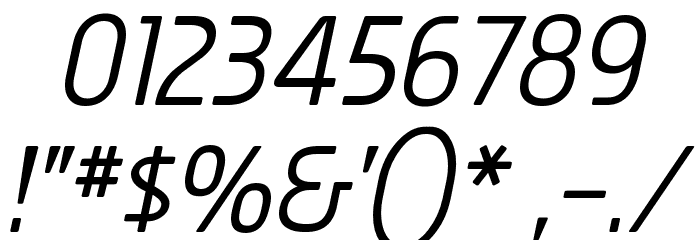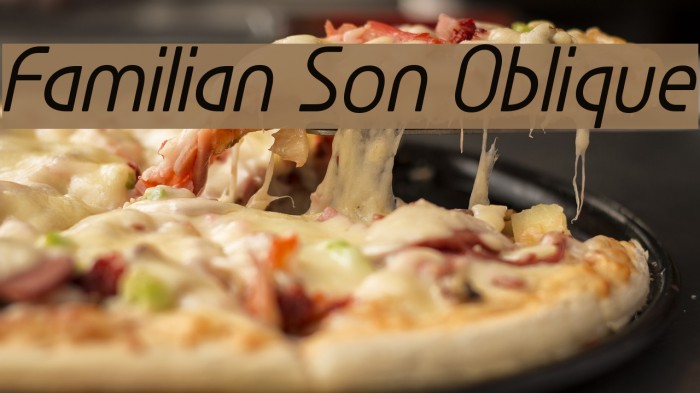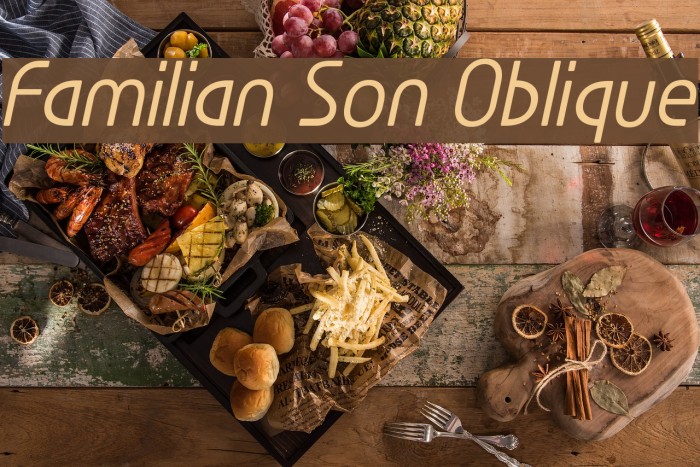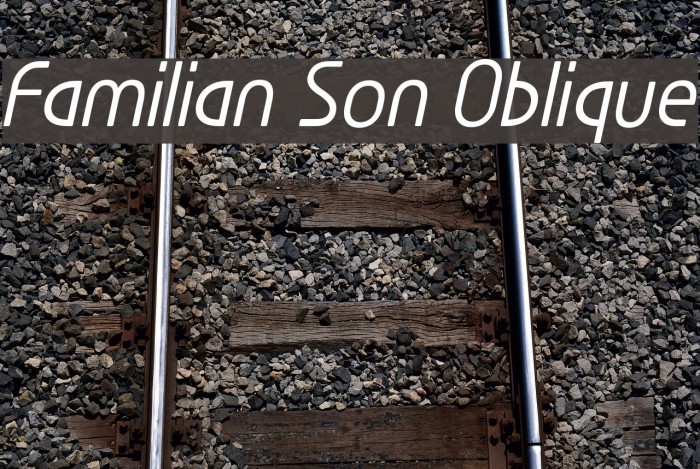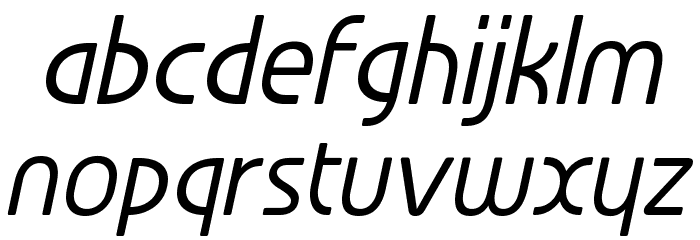
Familian Son Oblique Font
This font features a sleek, modern design with a slight oblique slant, giving it a dynamic and forward-moving appearance. The characters are clean and sans-serif, with smooth curves and a consistent stroke width that maintains readability. The uppercase and lowercase letters are well-proportioned, and the numerals are clear and distinct. Special characters are included, adding versatility to the font. Its contemporary style makes it suitable for a variety of digital and print applications.
A modern, oblique sans-serif font with smooth curves and consistent stroke width.
• Proposed Projects: Ideal for branding, advertising, digital media, and editorial design projects.
• Category: Sans-Serif
• Bold: No
• Italic: Yes
• Weight: Regular
• Width: Normal
• Character Spacing: Normal
• Contrast: Low
• Overall Style: Modern
• Use Case: Headlines, Body text, Logos